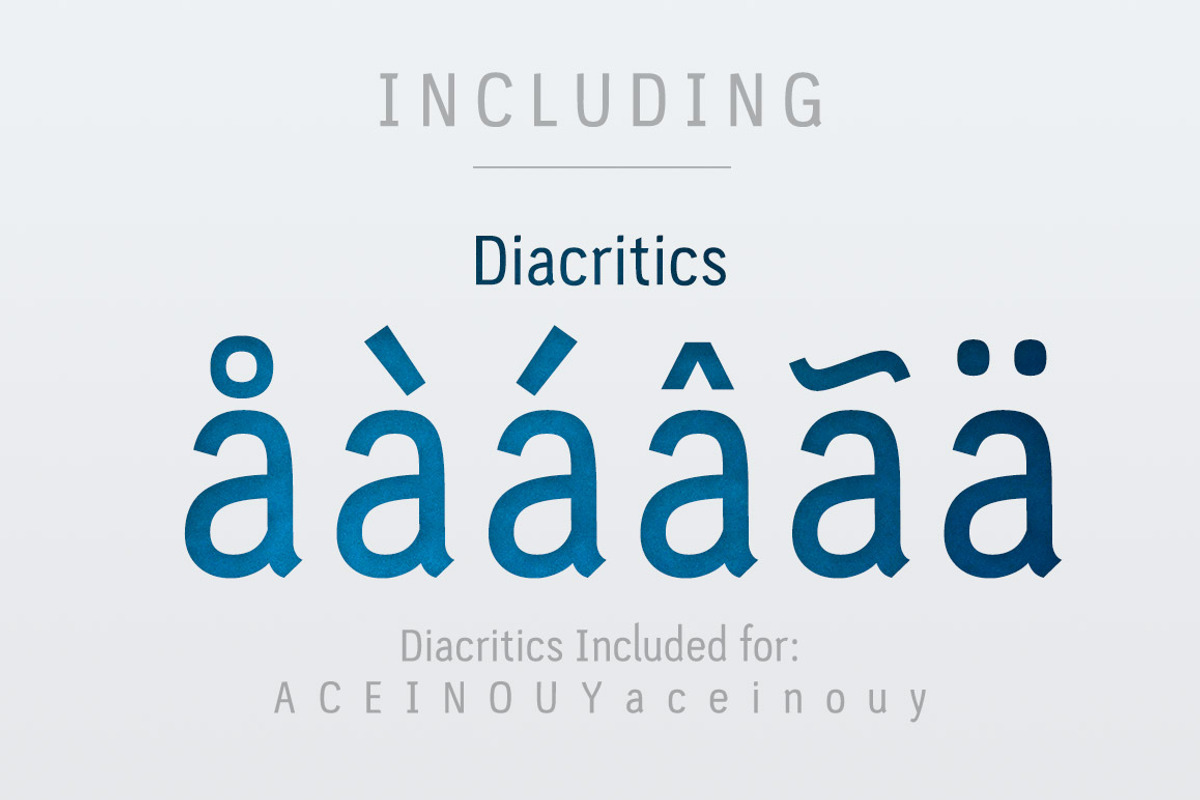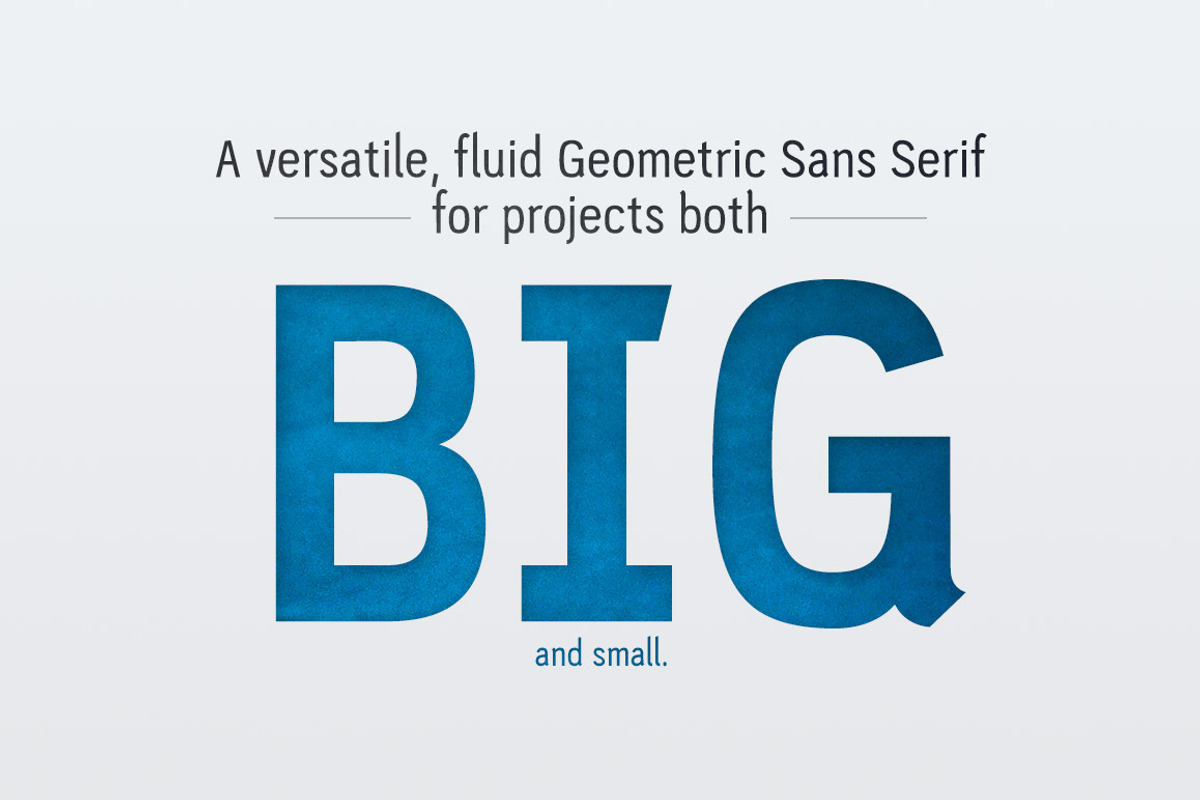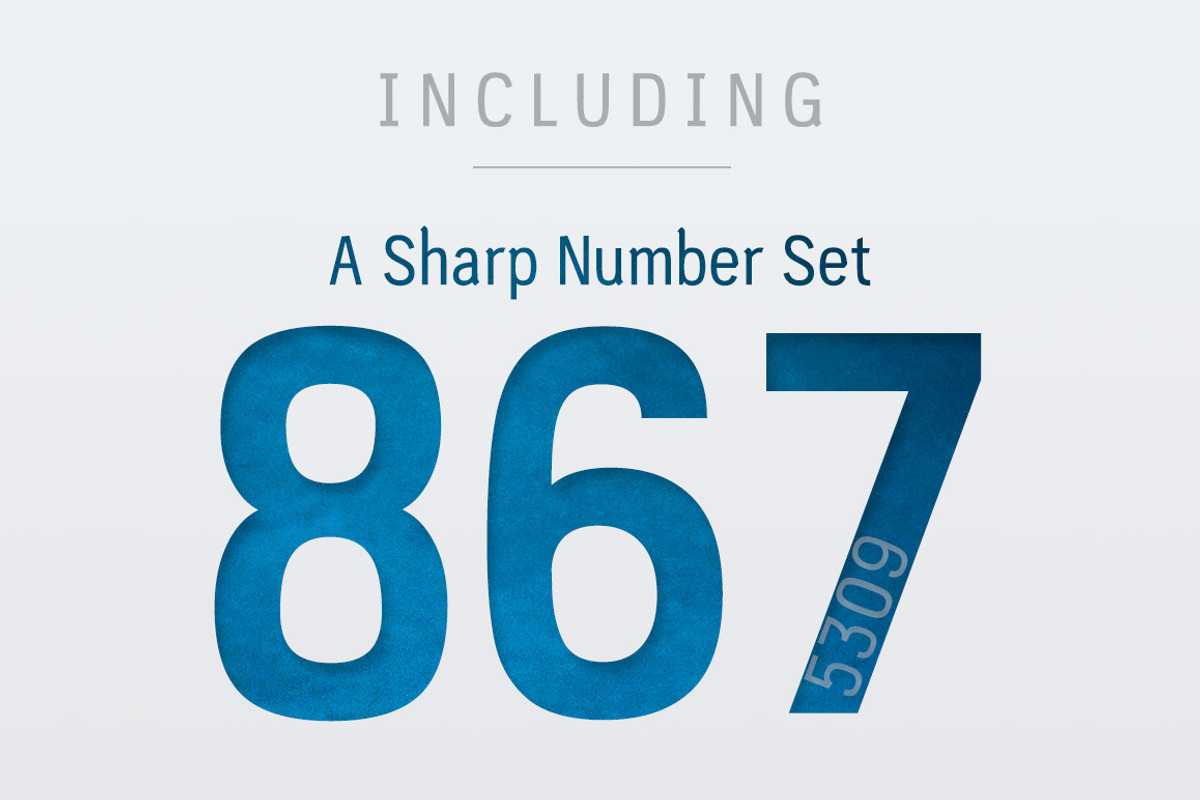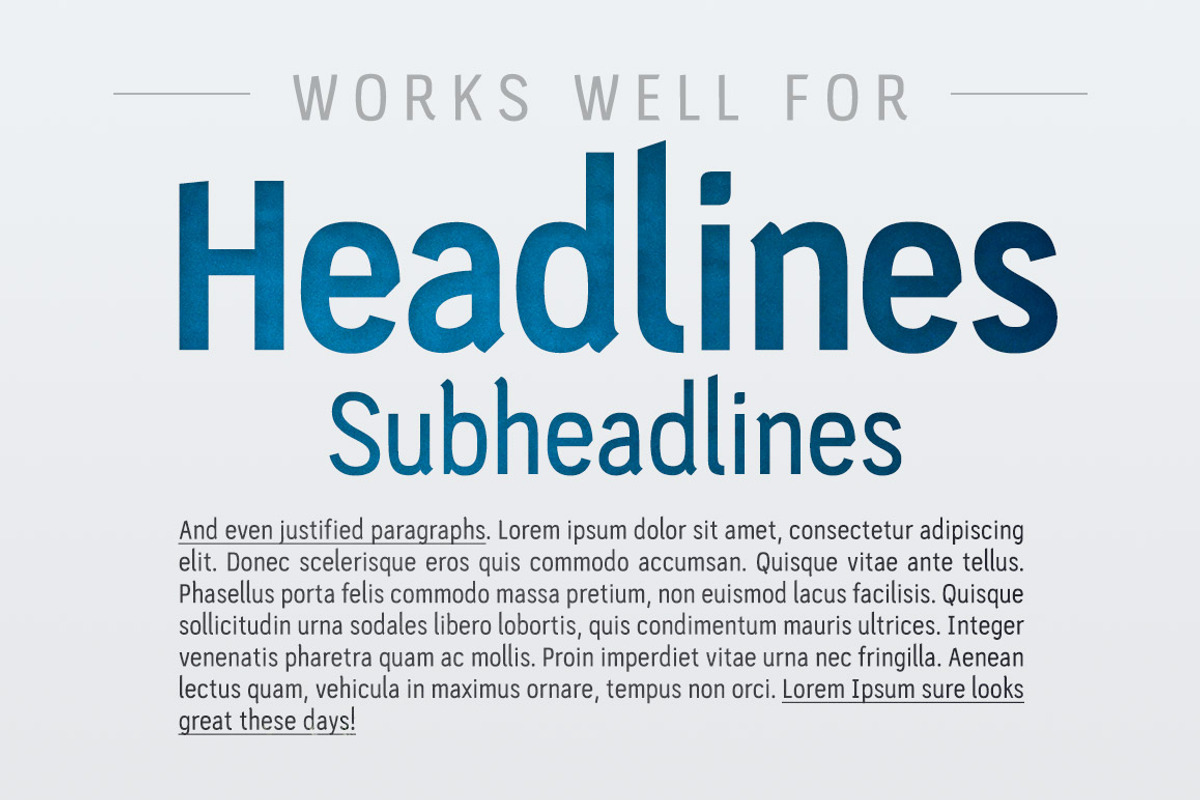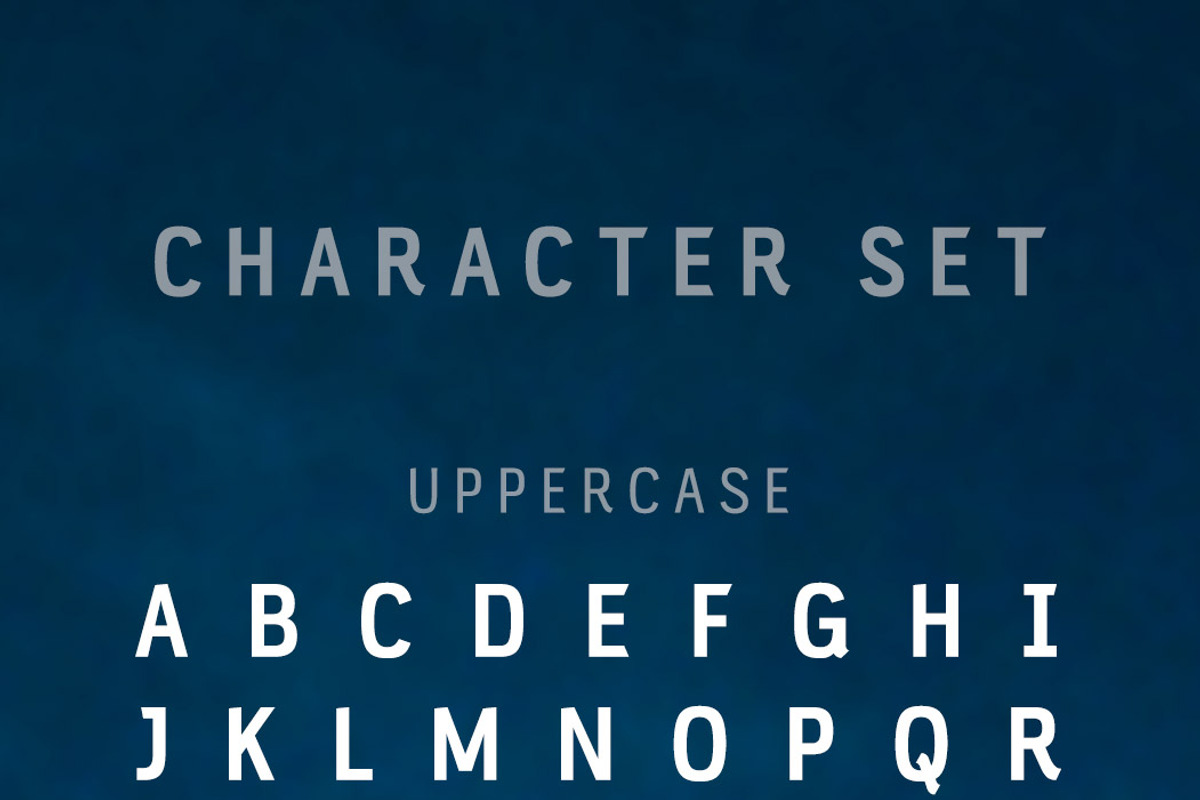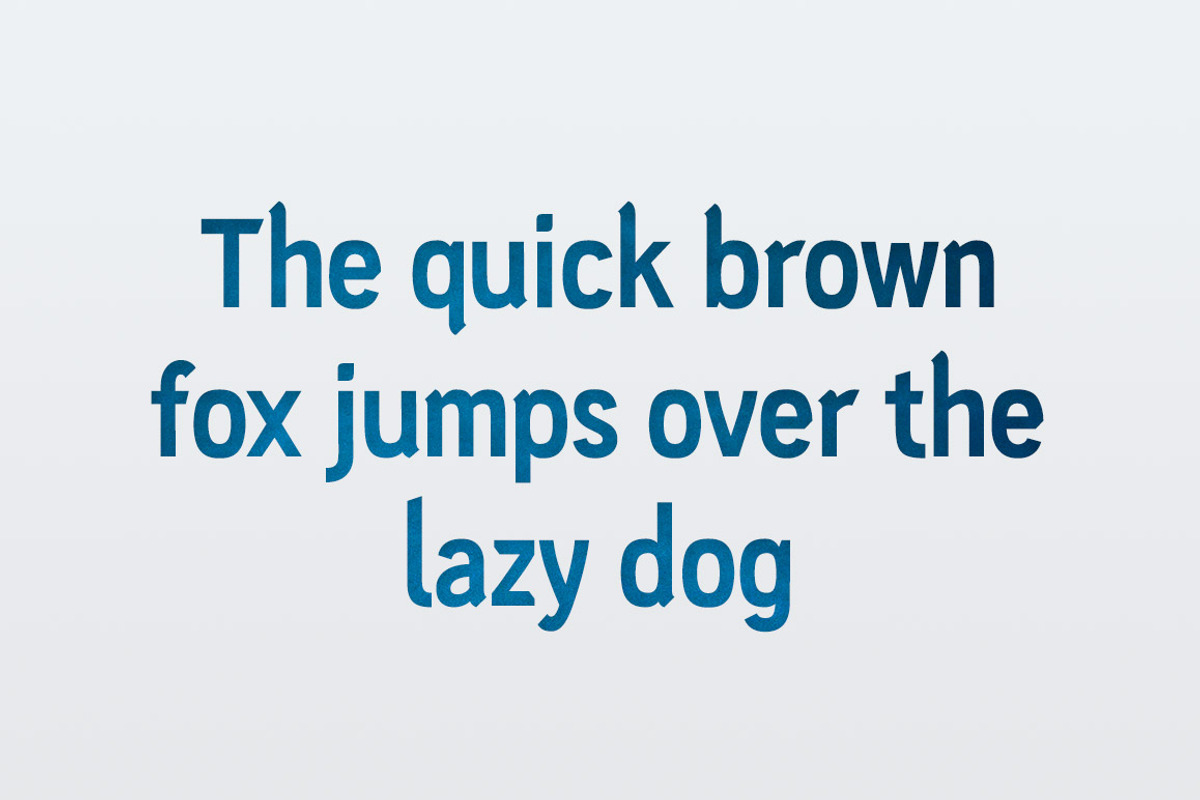
PC Navita | Modern Font + Personality!
Introducing PC Navita, a modern geometric sans serif with a friendly side.
The unusual curves and corners in the design gives PC Navita a unique personality - one that can be used to make a truly distinct brand identity assets (logos, graphics, signage, websites, etc).
The complete PC Navita font family is made up of 14 fonts in total, with 7 weights ranging from thin to extra bold, and 7 oblique variations).